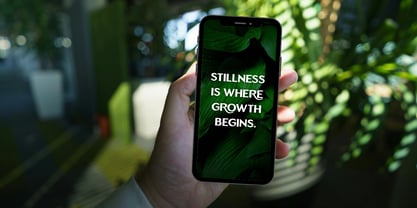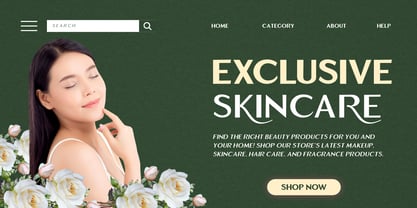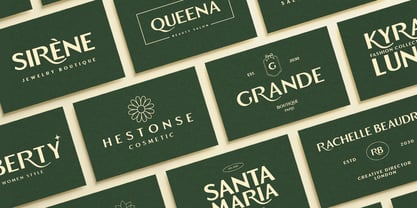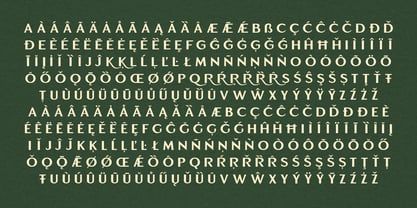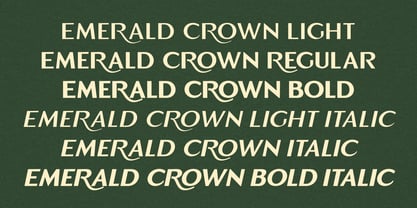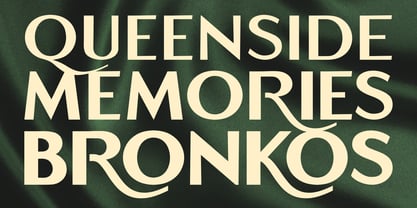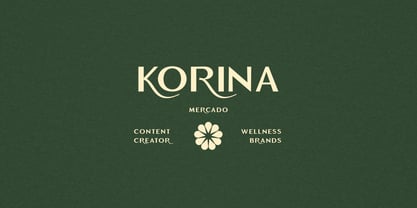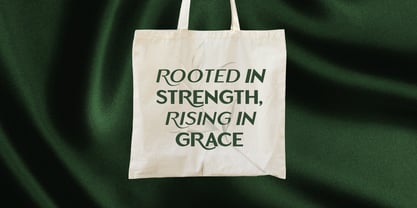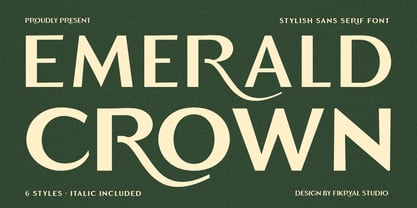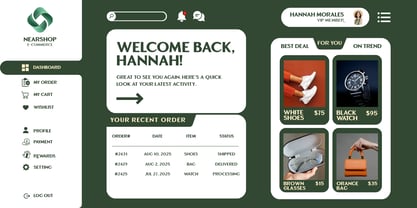
Emerald Crown
par Fikryal
La famille de polices Emerald Crown a été conçue par Muhammad Fikry et publiée par Fikryal. Emerald Crown contient 6 styles et options de package familial. En savoir plus sur cette famille
Emerald Crown is a stylish all-caps sans serif font family designed for modern branding and display typography. The family consists of six styles including Thin, Regular, Bold, and their italic counterparts. The font features distinct uppercase and lowercase letterforms, enabling designers to create dynamic and expressive typographic layouts. Emerald Crown is suitable for professional branding systems, editorial design, headlines, and digital applications.